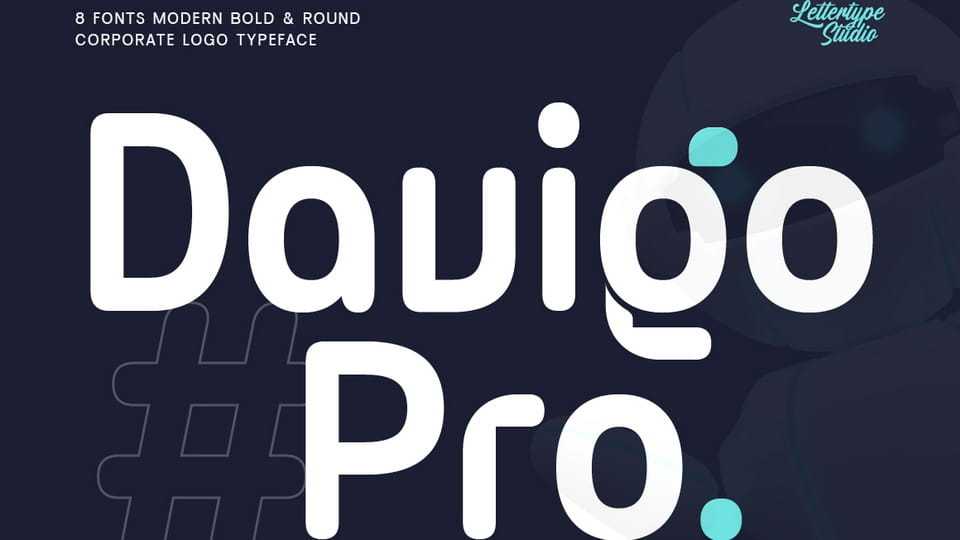
Download Davigo Pro font, the newest evolution of the Davigo type family, re-engineered with a refined rounded treatment that introduces a softer, more fluid visual character.
Designer: Lettertype Studio